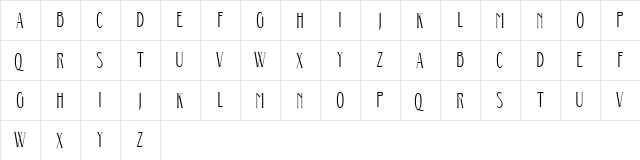
Aunofa Serif DEMO Regular Font Preview
Aunofa Serif DEMO Regular
Aunofa Serif DEMO Regular Font Details
| Foundry | Konstantine studio |
| Designer | Konstantine Studio |
Design Context for Aunofa Serif DEMO Typeface
Aunofa Serif DEMO brings classic typographic sensibility to the table — its serifs and measured letterforms reflect centuries of print heritage.
Pro Tip: Use Aunofa Serif DEMO for editorial body copy and considered headline work. Pair with a neutral sans for UI elements or captions to create a classic hierarchy.